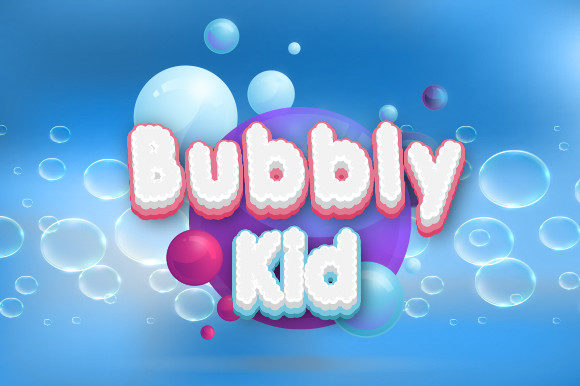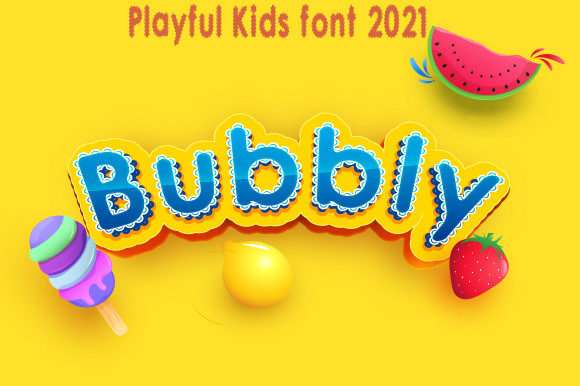
Bubbly Kid Font: The Perfect Choice for Children’s Projects and Designs
Are you looking for a fun and playful font to add a touch of whimsy to your children’s projects and designs? Look no further than the Bubbly Kid Font! This delightful display font features lovely, friendly characters outlined by colorful bubbles, making it the perfect choice for designers and crafters who work with kids.
What is Bubbly Kid Font?
Bubbly Kid Font is a unique and eye-catching typeface that is sure to capture the attention of kids and adults alike. The font features bold, playful characters that are outlined by colorful bubbles, giving it a fun and lively feel. The bubbles add a touch of sweetness and innocence to the font, making it perfect for children’s projects, such as book covers, posters, and activity sheets.
Key Features of Bubbly Kid Font
• Fun and Playful Design: The Bubbly Kid Font features a fun and playful design that is sure to delight kids and adults alike.
• Colorful Bubbles: The font’s colorful bubbles add a touch of whimsy and fun to any design.
• Lovely, Friendly Characters: The font’s characters are designed to be friendly and approachable, making it perfect for children’s projects.
• Display Font: The Bubbly Kid Font is a display font, making it perfect for headlines, titles, and other display text.
Uses for Bubbly Kid Font
The Bubbly Kid Font is perfect for a variety of children’s projects and designs, including:
• Children’s Book Covers: The font’s playful design and colorful bubbles make it perfect for children’s book covers.
• Posters and Flyers: The font’s bold, eye-catching design makes it perfect for posters and flyers aimed at kids.
• Activity Sheets and Worksheets: The font’s friendly characters and colorful bubbles make it perfect for activity sheets and worksheets.
• Crafting and DIY Projects: The font’s playful design makes it perfect for crafting and DIY projects, such as signs, banners, and other decorations.
Why Choose Bubbly Kid Font?
There are many reasons why designers and crafters should choose the Bubbly Kid Font for their children’s projects and designs. Here are just a few:
• Unique and Eye-Catching Design: The Bubbly Kid Font features a unique and eye-catching design that is sure to capture the attention of kids and adults alike.
• Easy to Read: Despite its playful design, the font is easy to read, making it perfect for use in children’s books, activity sheets, and other materials.
• Versatile: The font is versatile and can be used in a variety of contexts, from children’s books to crafting and DIY projects.
• Fun and Engaging: The font’s playful design and colorful bubbles make it perfect for creating fun and engaging materials for kids.
Tips for Using Bubbly Kid Font
Here are a few tips for using the Bubbly Kid Font in your designs:
• Use it for Headlines and Titles: The Bubbly Kid Font is a display font, making it perfect for use in headlines and titles.
• Pair it with Other Fonts: The font can be paired with other fonts to create a unique and eye-catching design.
• Experiment with Colors: The font’s colorful bubbles make it perfect for experimenting with different colors and color schemes.
• Have Fun!: The Bubbly Kid Font is a fun and playful font, so don’t be afraid to have fun and be creative with it!
Overall, the Bubbly Kid Font is a fun and playful display font that is perfect for children’s projects and designs. Its unique and eye-catching design, easy readability, and versatility make it a great choice for designers and crafters who work with kids. So why not give it a try and see what amazing creations you can come up with?